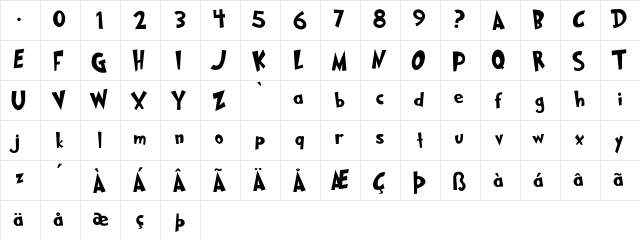
Grinched 2.0 Regular
Design Context for Grinched 2.0 Typeface
Grinched 2.0 is a composed and adaptable typeface that performs quietly and consistently across a wide range of design contexts.